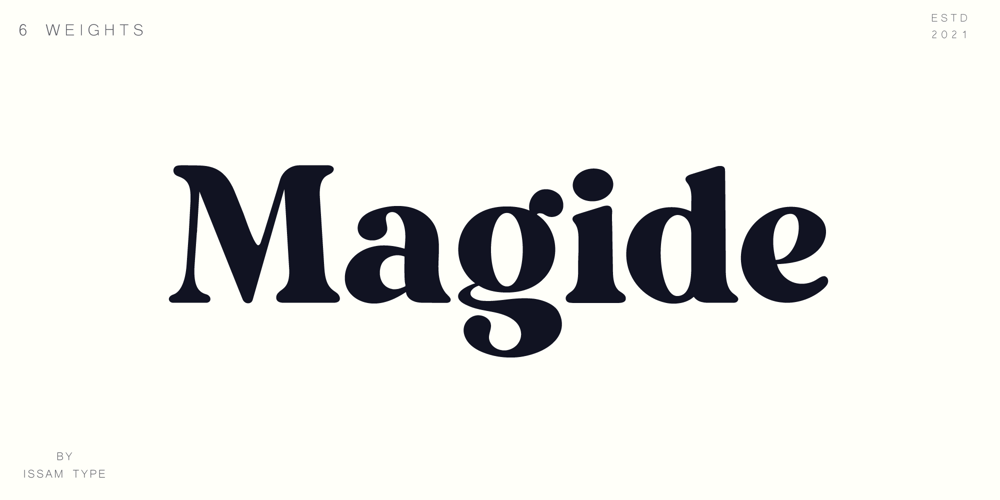
Magide Font Family was designed by Issam Boufelja and published by Issam Type. Magide contains 6 styles and family package options. Magide is a retro and bold serif font typeface.This font perfect for branding, Headlines, Retro designs, logos, invitation, watermark and so much more.Magide typeface comes with Regular, Thin, bold, Black and 2 Outline font styles. Uppercase & lowercase letters, numbers, punctuation, ligatures, alternates and multilingual support.If you have any questions, please feel free to get in touch.Thank you